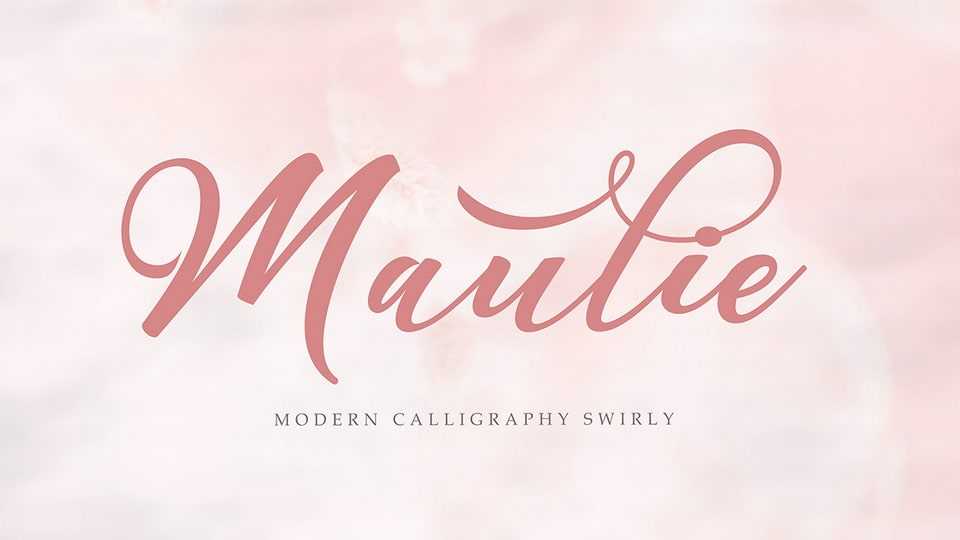
Download Maulie Script font, an elegant typeface for those of you who need a touch of elegance combining classic style with modern calligraphy style for your design.